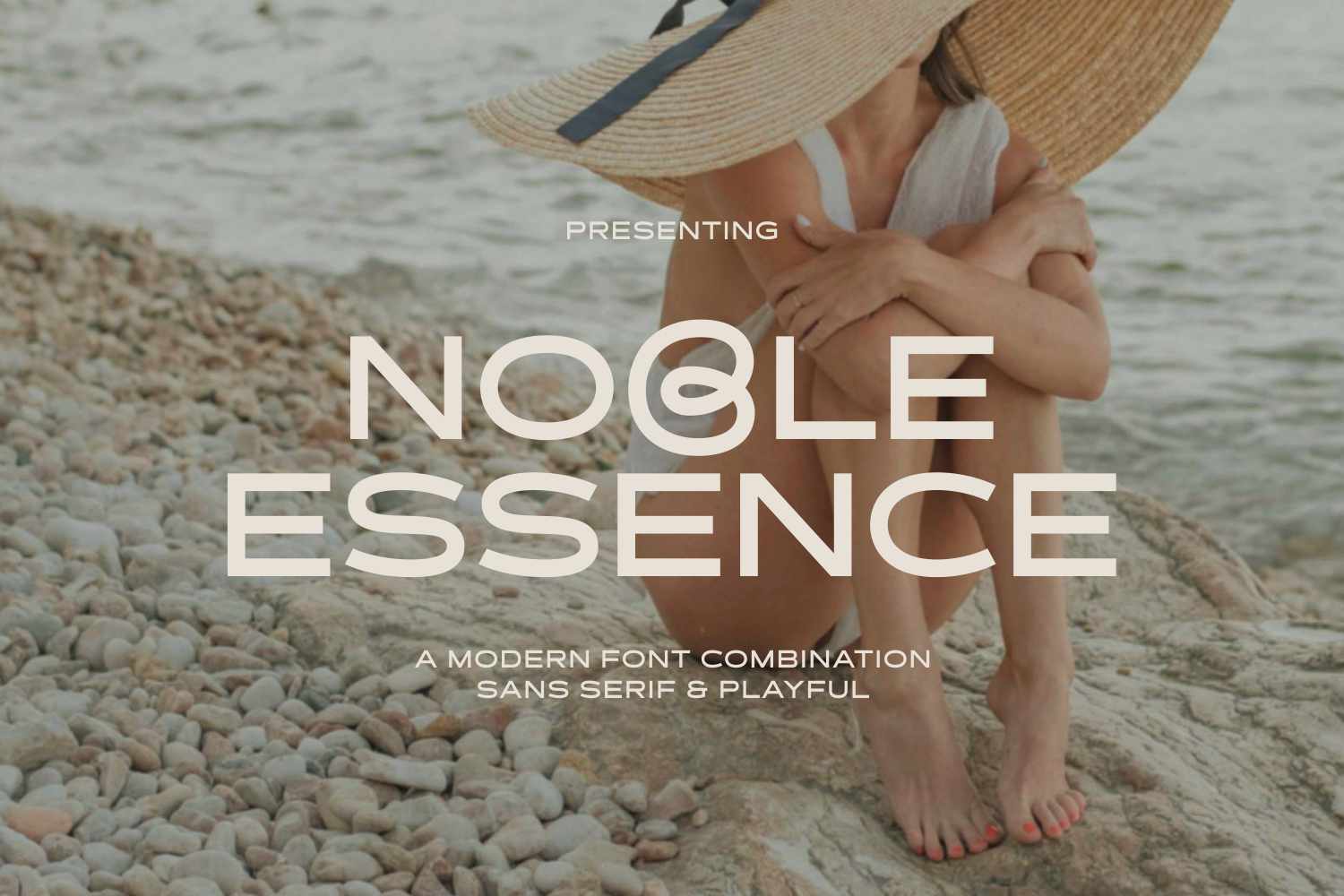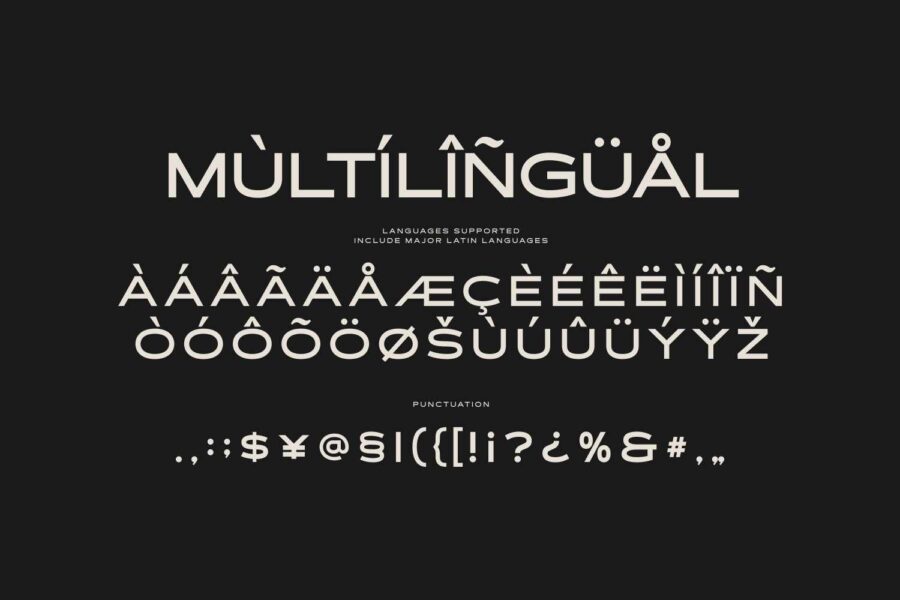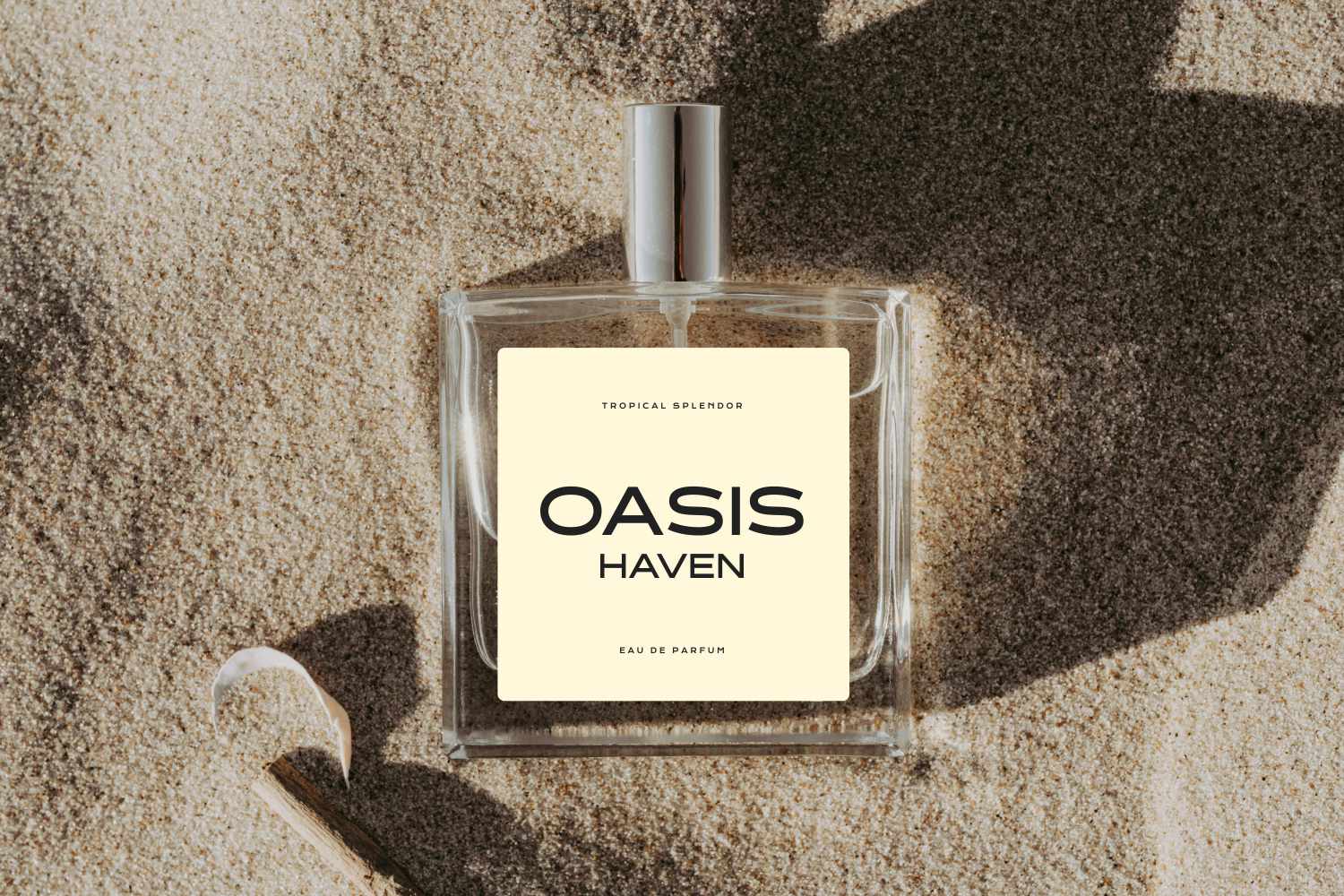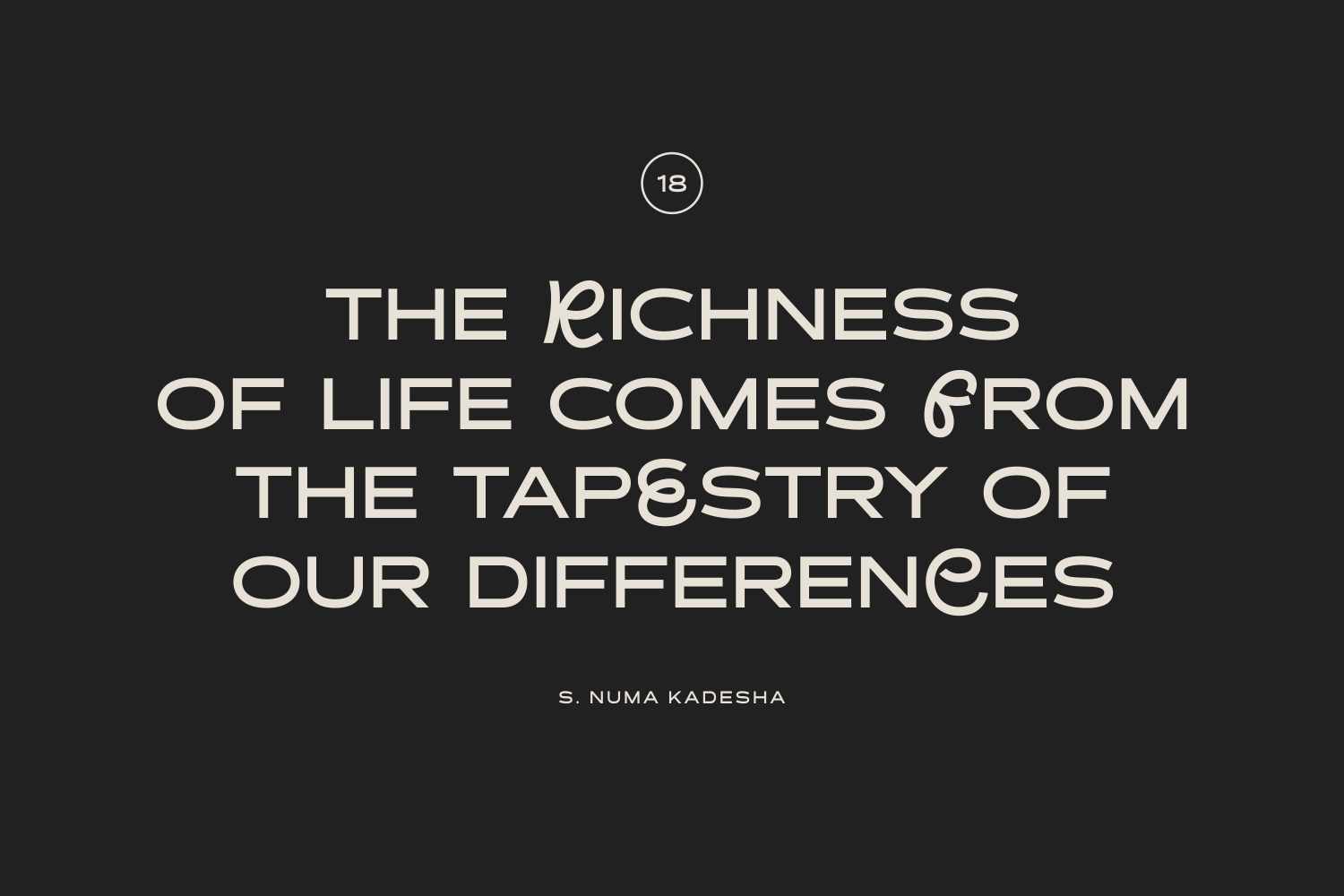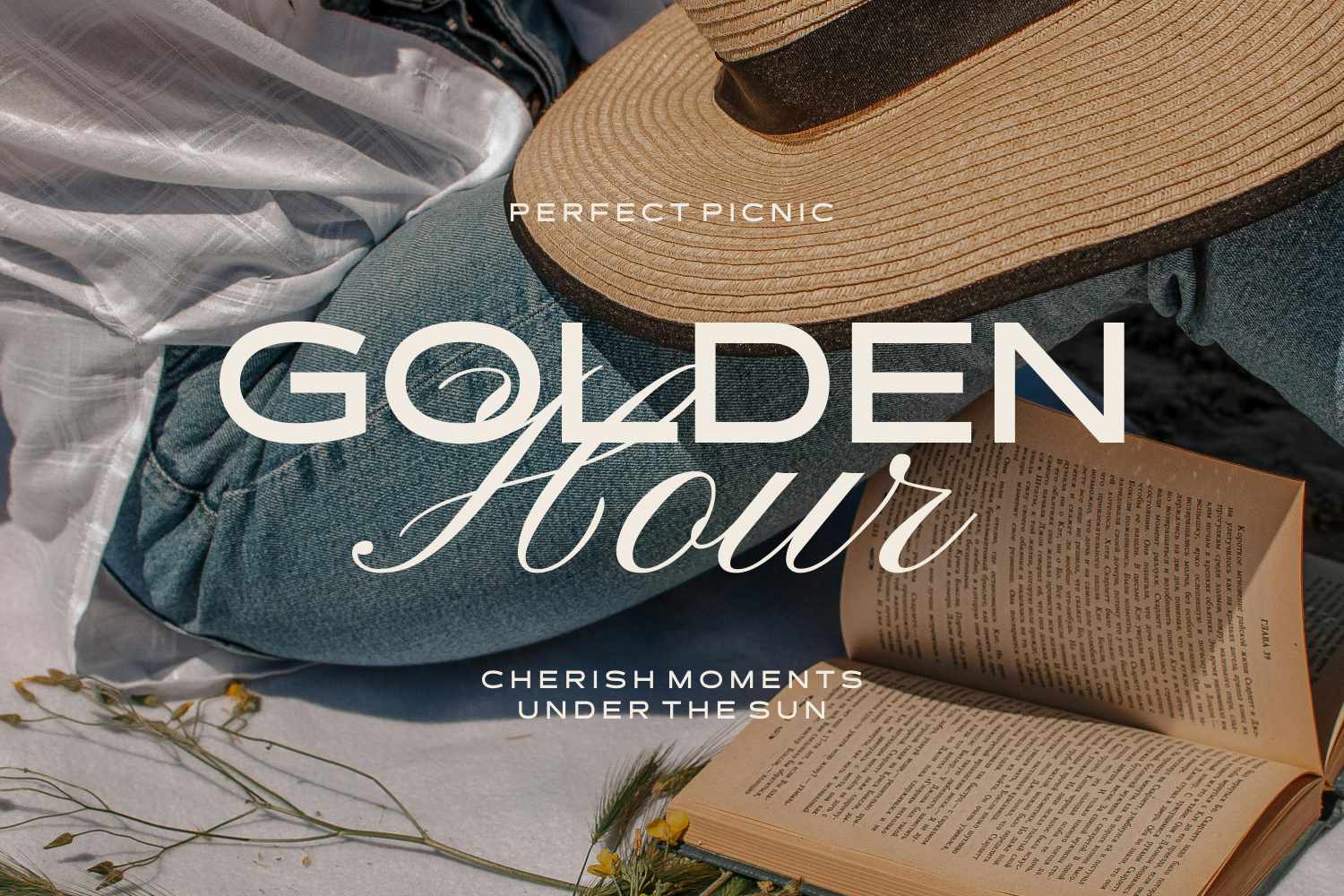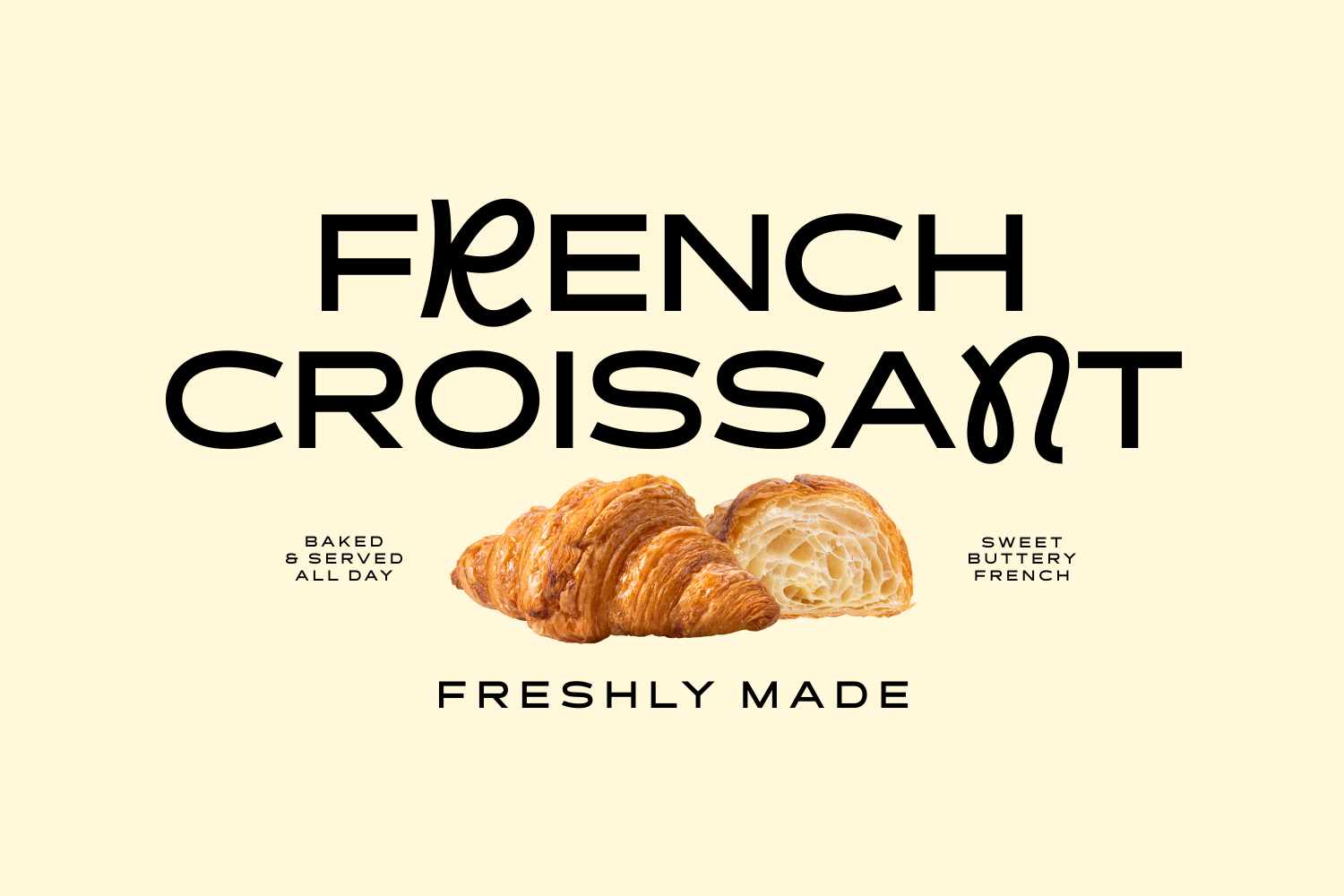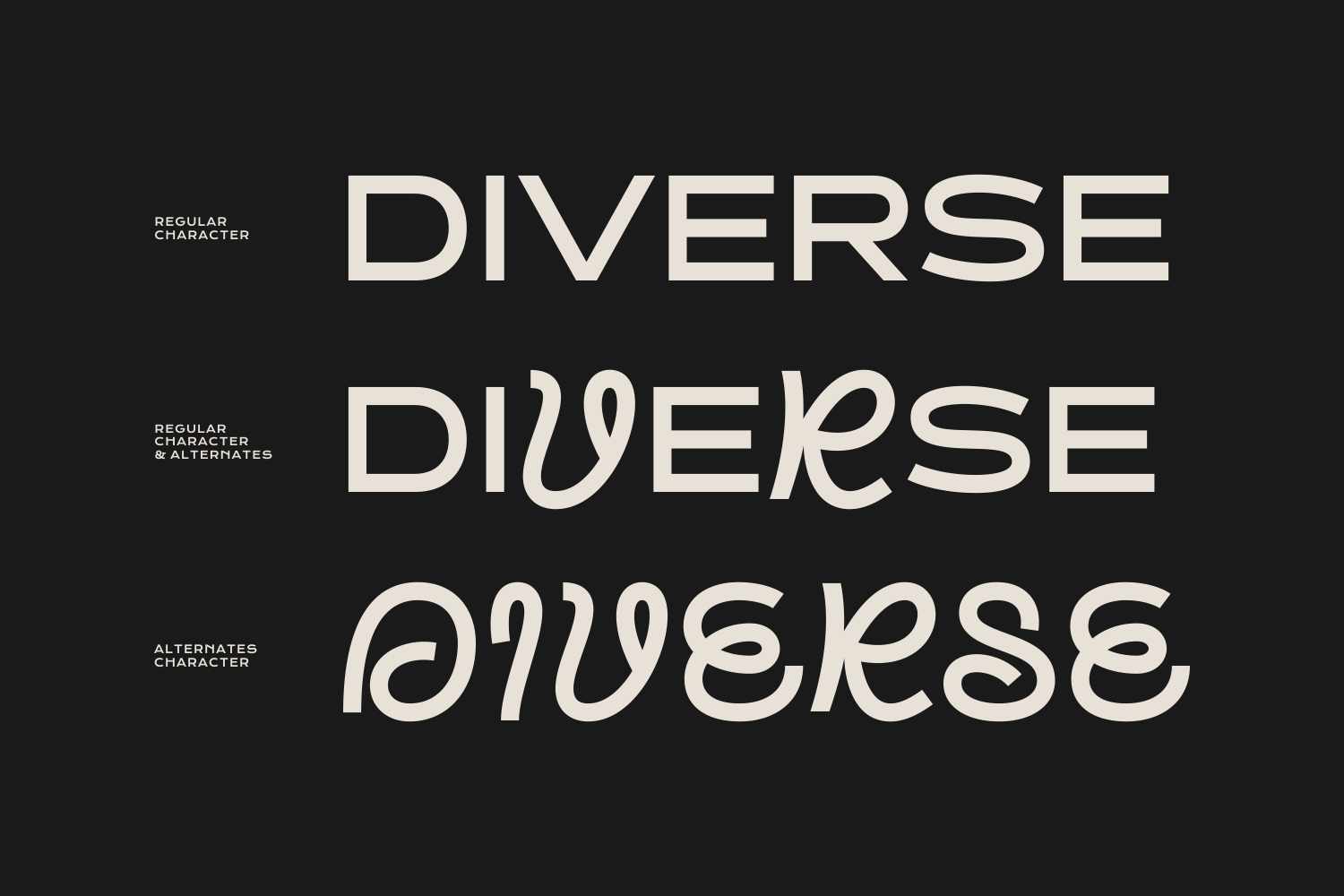
Noble Essence is a modern font combination that blends the clean structure of a geometric sans serif with expressive, playful alternates. Designed to balance minimalism with personality, this typeface is ideal for lifestyle branding, fashion-forward design, and artisan product packaging.